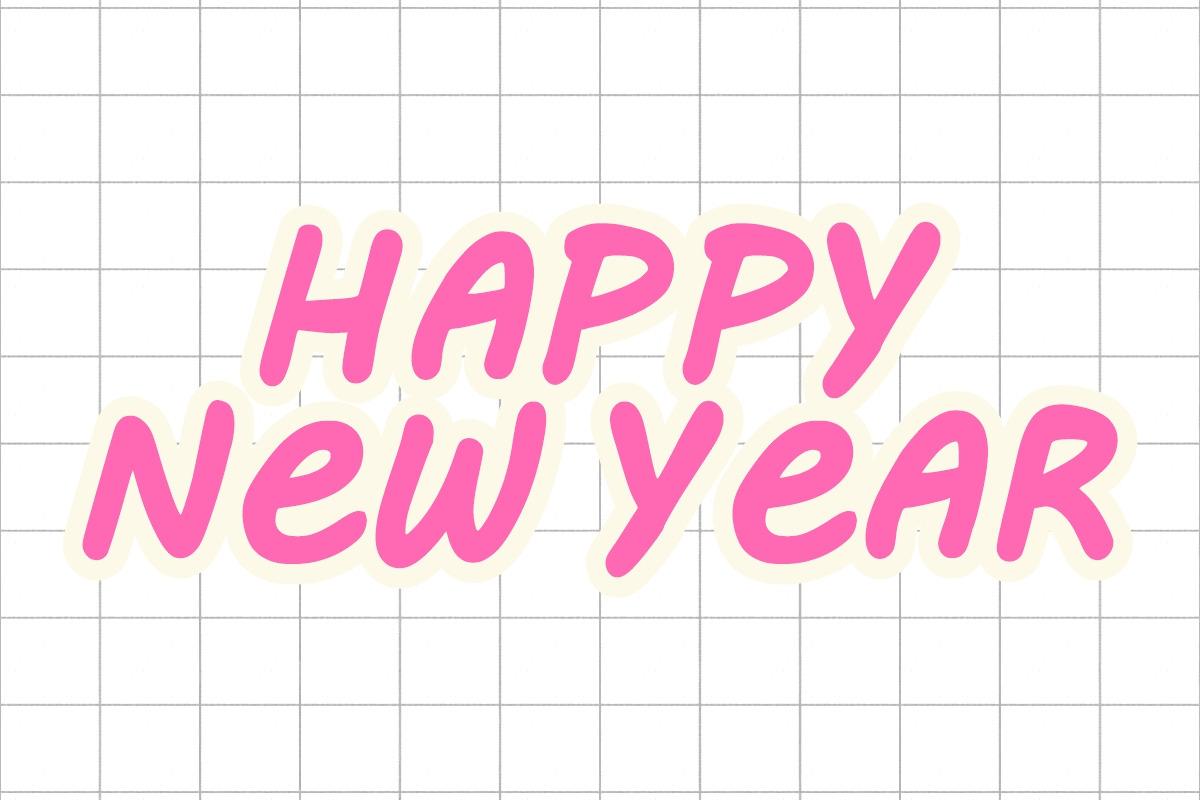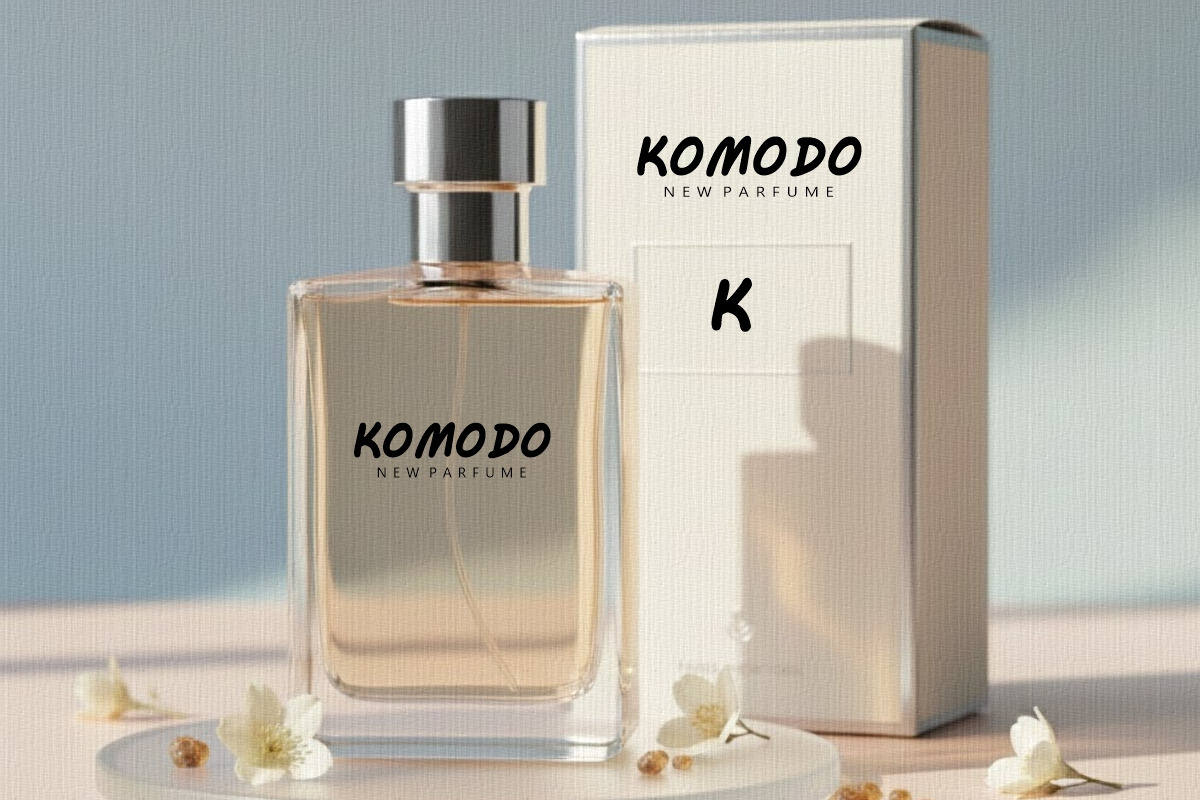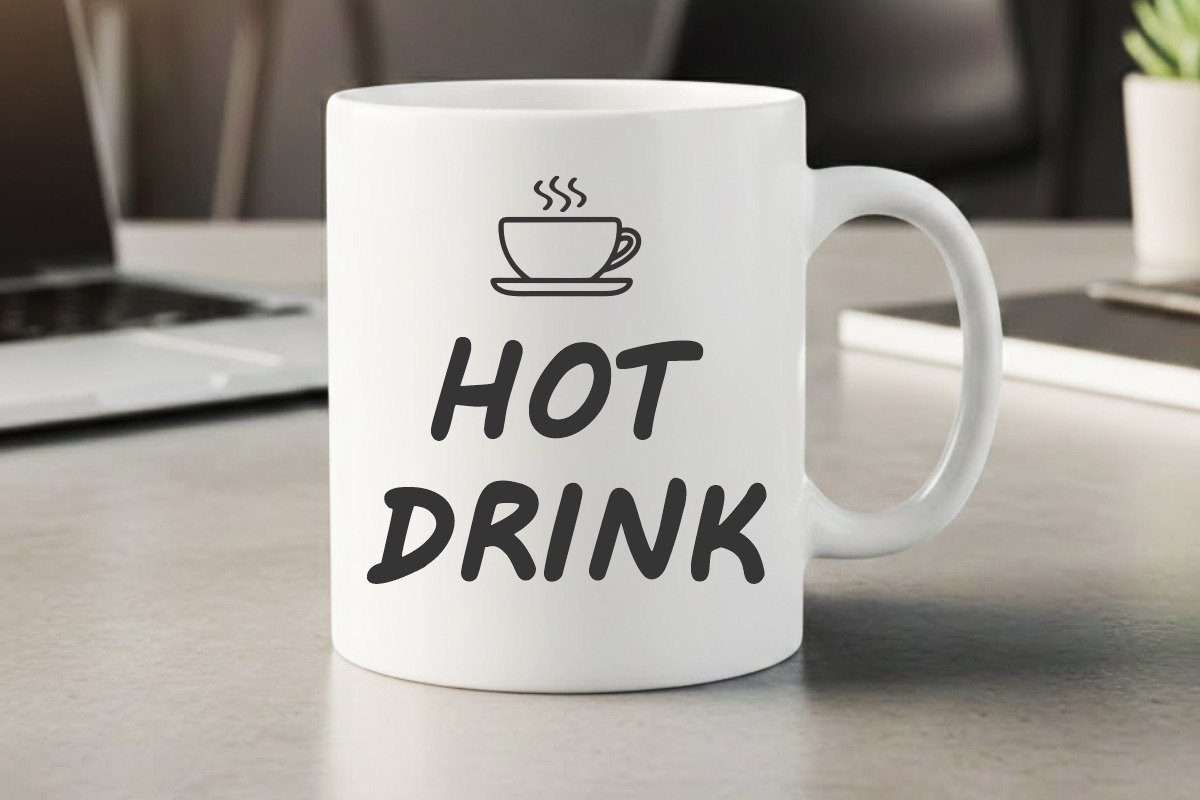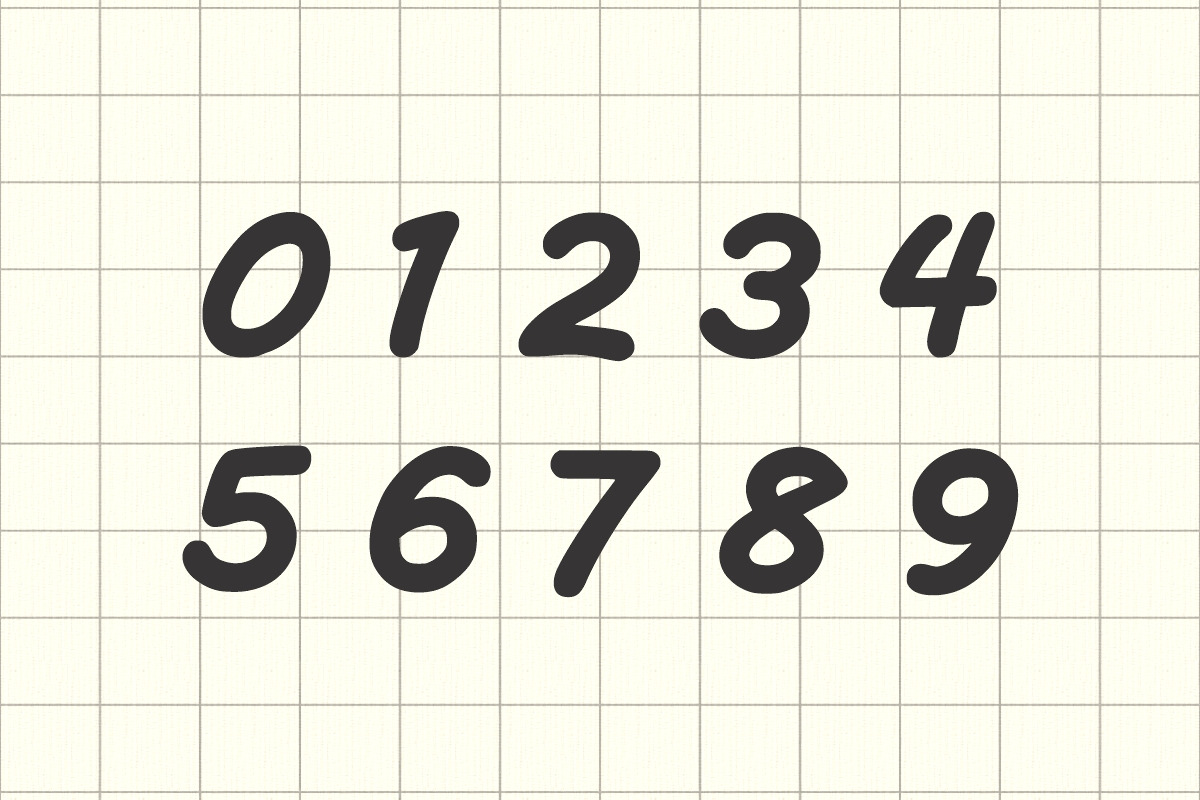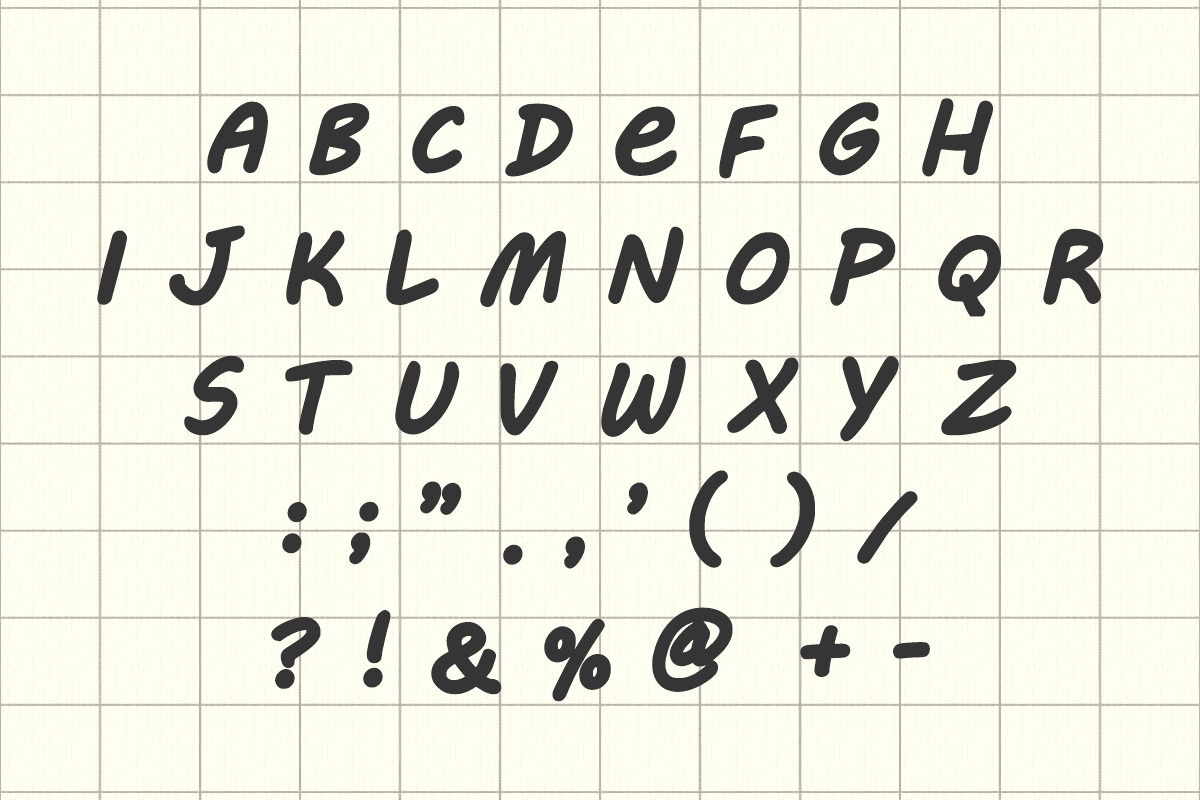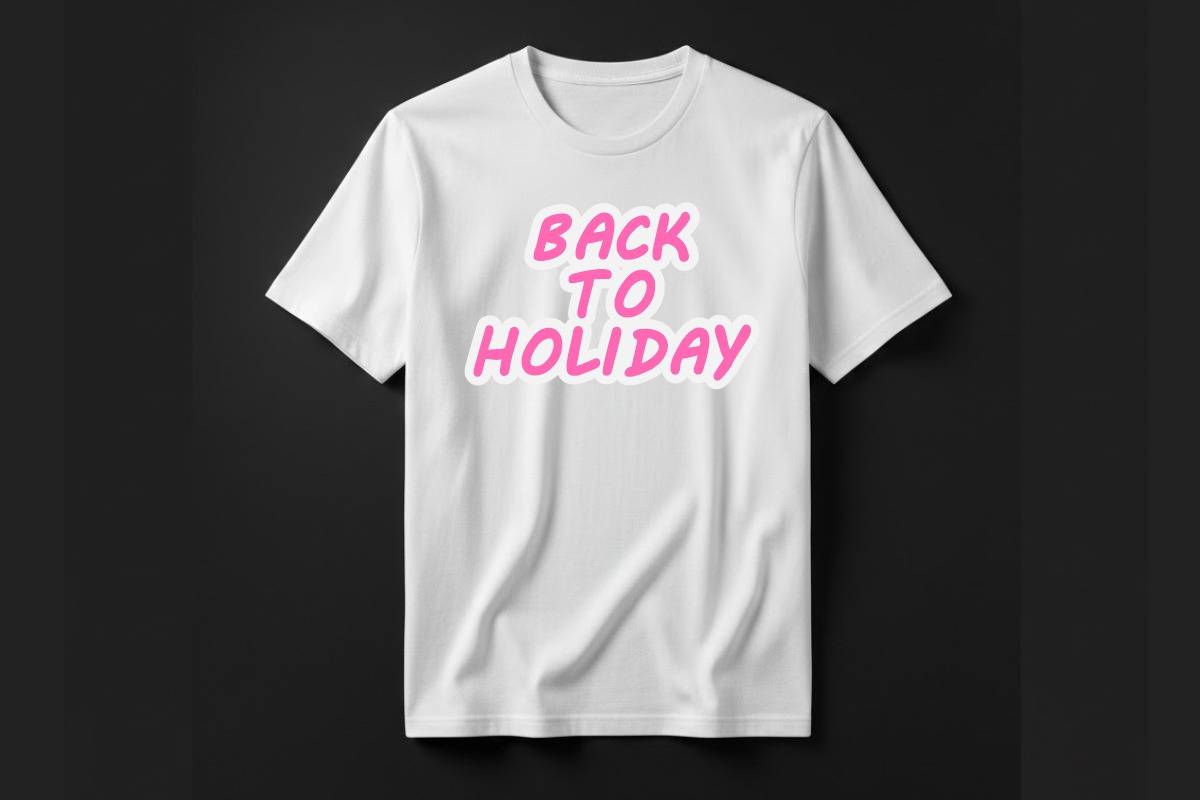
Super Bubble
Super Bubble is a charming and cute bold font that exudes playfulness! Its soft curves and bold appearance are perfect for creating eye-catching headlines, posters, social media graphics, and branding. Add a dreamy touch to your designs with this delightful font that’s both fun and versatile.